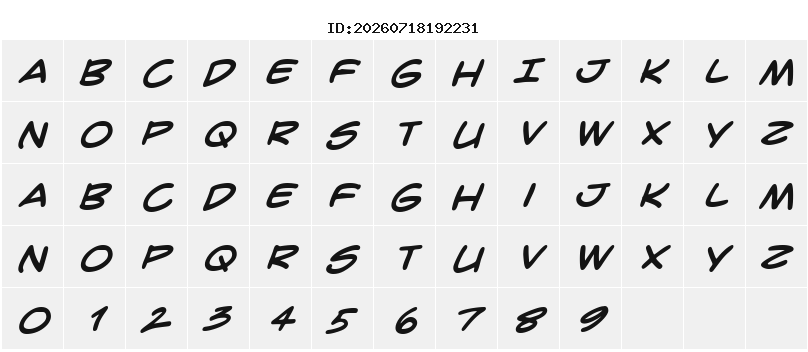
CrimeFighter BB Preview
• Font Name: CrimeFighter BB
• Full Font Name: CrimeFighter BB Bold
About CrimeFighter BB.ttf
CrimeFighter BB.ttf is a modern, elegant sans-serif font designed for ultimate readability and visual harmony. Perfect for branding, headlines, web design, and print materials.